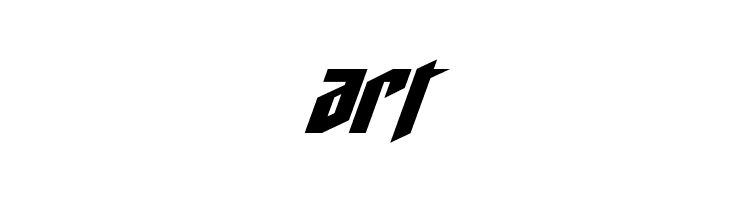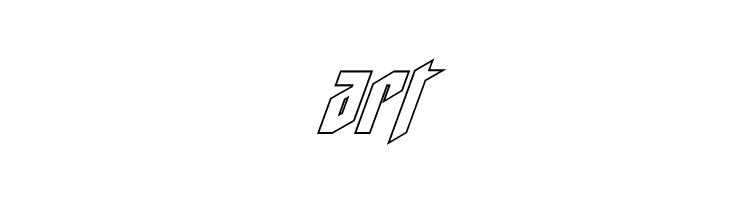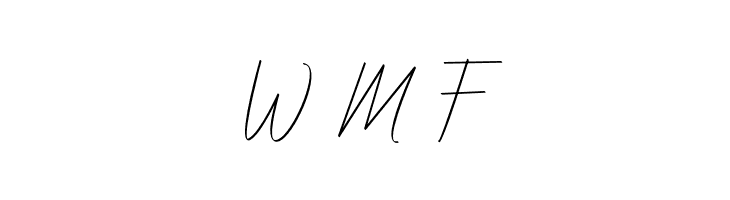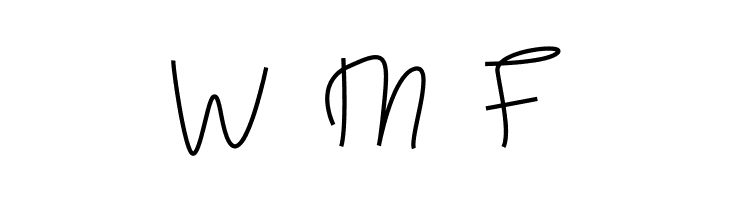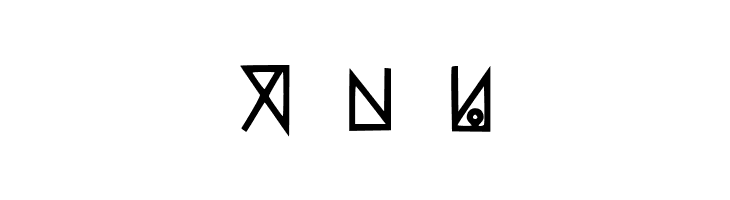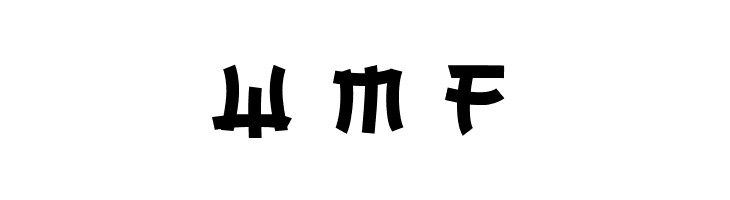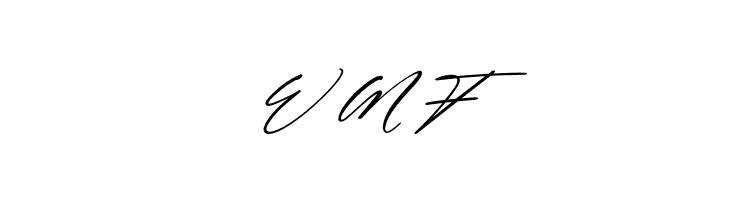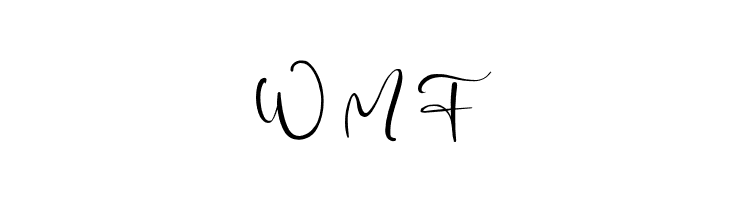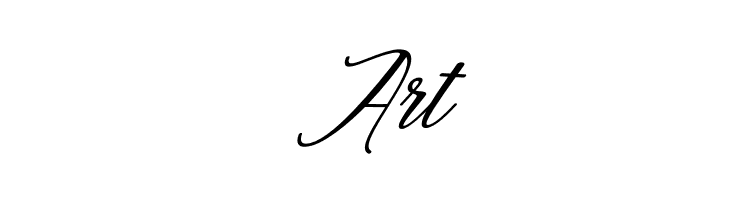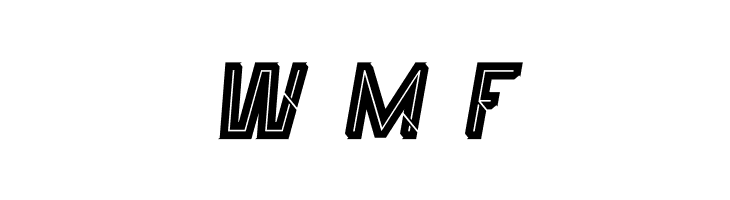
An elegant, flowing script font with a sophisticated and artistic flair.
A cursive, handwritten font with elegant, flowing strokes.
A bold, expressive handwritten font with dynamic strokes and a playful style.
A playful, handwritten font with tall, narrow, and slightly irregular strokes.
A playful and energetic handwritten font with flowing, connected strokes.
A bold, expressive script font with fluid, connected letterforms.
A playful, handwritten font with smooth curves and a friendly appearance.
A bold, expressive handwritten font with a playful and artistic style.
A bold, playful font with irregular, hand-drawn letterforms.
A bold, flowing script font with elegant curves and a dynamic slant.
A bold, dynamic script font with flowing, cursive letterforms.
A bold, geometric oblique font with outlined characters and a modern, dynamic style.
A bold, oblique font with a double-line effect and geometric structure.
A bold, geometric oblique font with angular shapes and a modern feel.
A classic serif font with medium contrast and elegant serifs.
A bold, cursive font with a dynamic and flowing style.
An artistic swash font with fluid, decorative strokes.
A playful, casual handwritten font with irregular strokes and an organic flow.
A playful, handwritten font with a casual and creative style.
A decorative, geometric font with a cryptic and futuristic design.
A playful, handwritten font with bold, dynamic characters and a lively style.
A bold, handwritten-style font with a playful and dynamic appearance.
A bold, angular font with geometric shapes and thick strokes.
A playful, rounded font with bold, smooth curves and a modern look.
A cursive, handwritten font with elegant, flowing lines.
A modern, handwritten font with elegant, flowing characters.
A bold, dynamic script font with a handwritten style.
A modern, geometric sans-serif font with thin, consistent lines and balanced spacing.
A bold, futuristic font with geometric and three-dimensional elements.
A lively and energetic handwritten font with playful curves.
An elegant, flowing script font with ornate uppercase and smooth lowercase letters.
A whimsical, cursive script font with elegant, flowing lines.
A playful, handwritten font with fluid, irregular strokes.
A fluid, cursive font with an elegant, handwritten style.
A bold, angular font with a futuristic and edgy design.